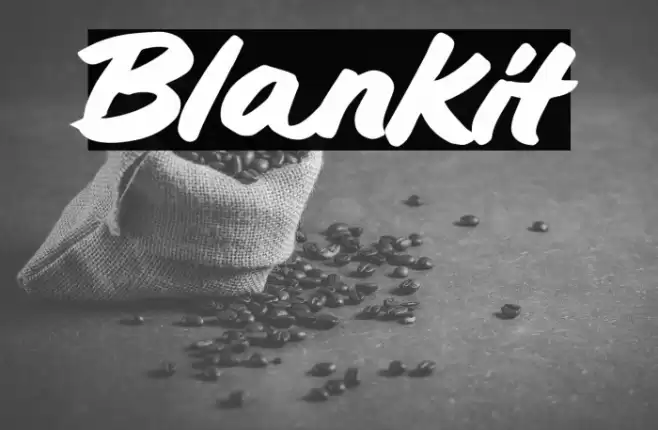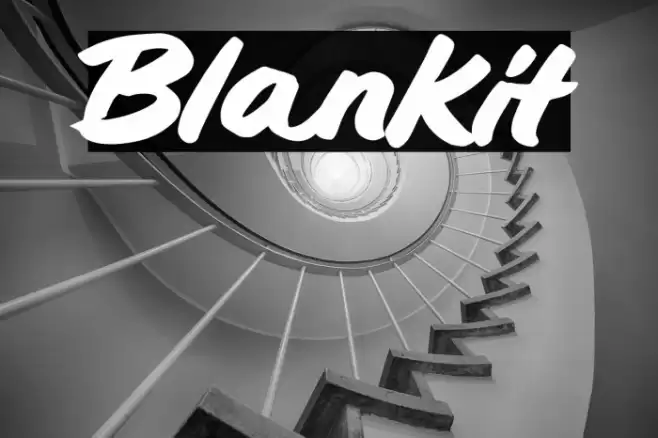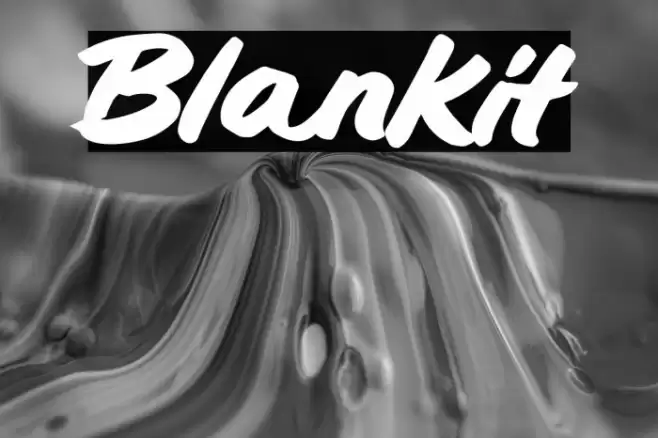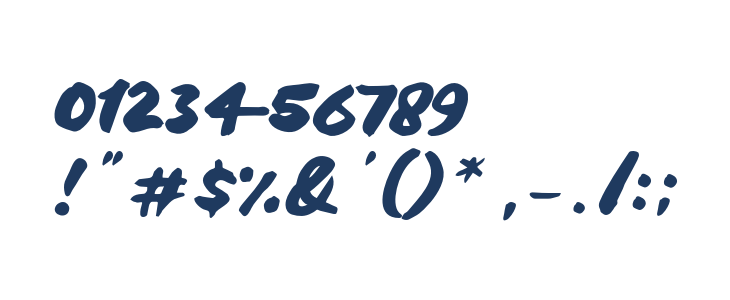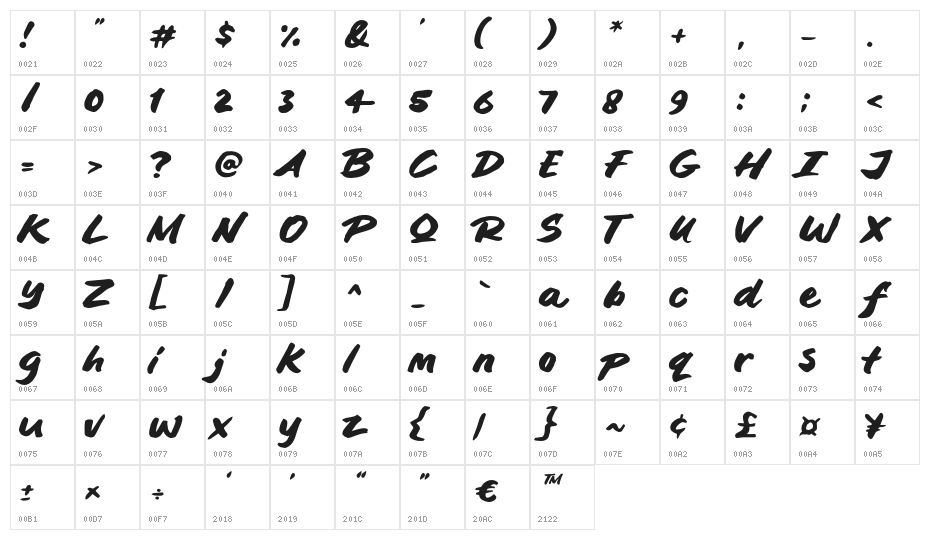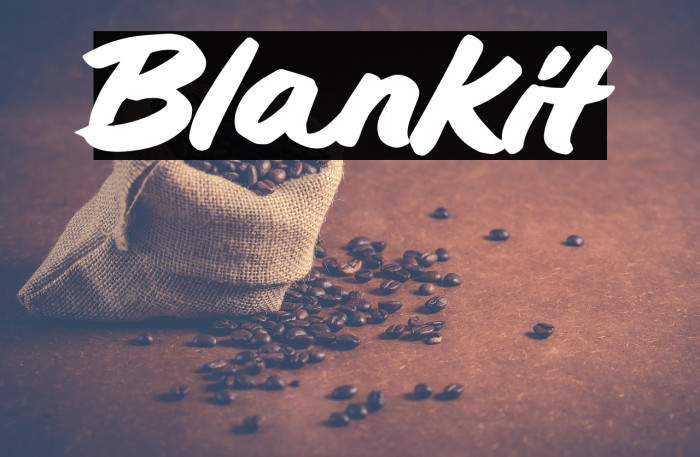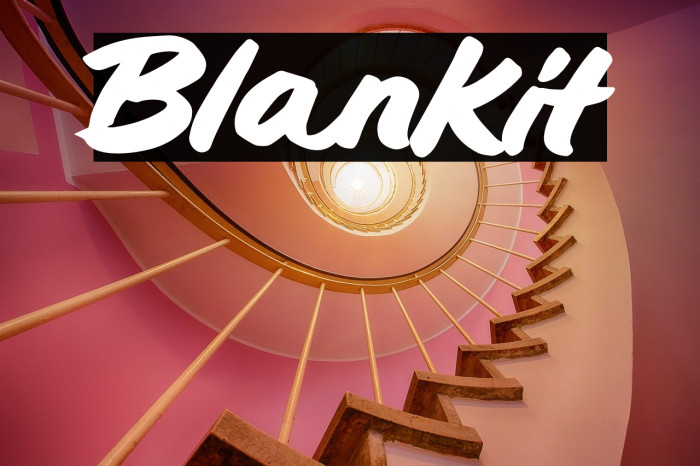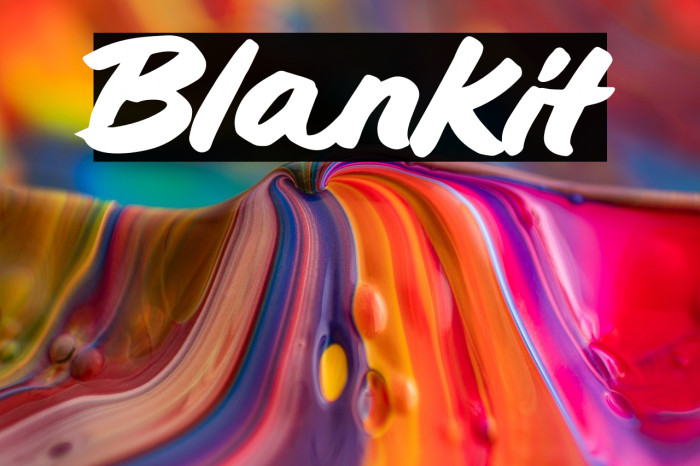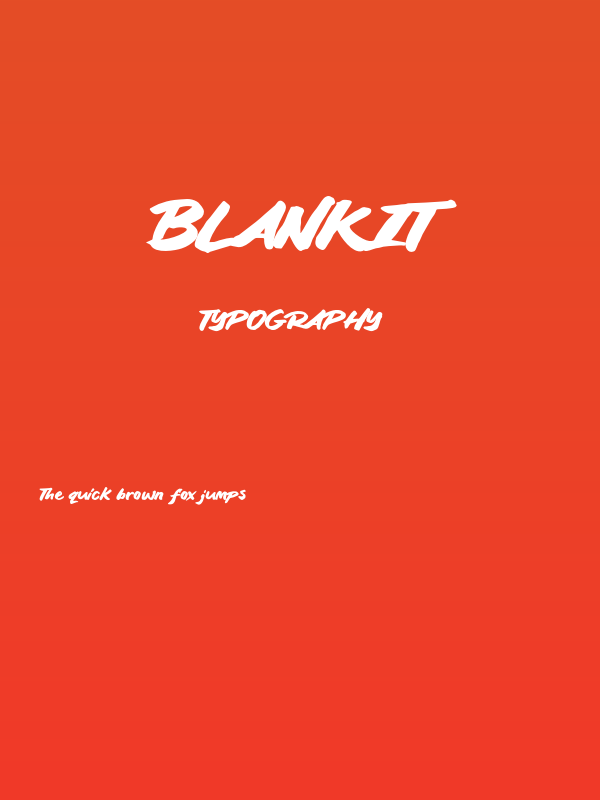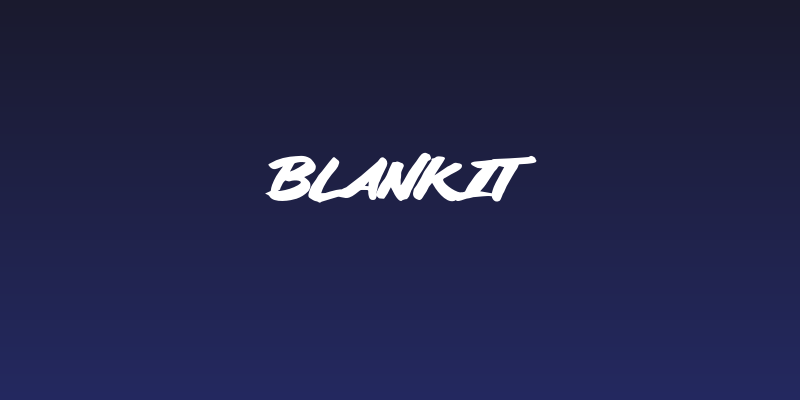
Blankit Font
Blankit Description
This font features a bold and dynamic script style, characterized by its fluid and energetic strokes. The letters are connected in a way that mimics natural handwriting, giving it a personal and expressive feel. The uppercase and lowercase letters maintain a consistent flow, while the numbers and special characters are designed to complement the overall aesthetic. The boldness of the strokes adds a sense of confidence and impact, making it suitable for attention-grabbing designs.
A bold, dynamic script font with fluid, energetic strokes from Regular fonts.